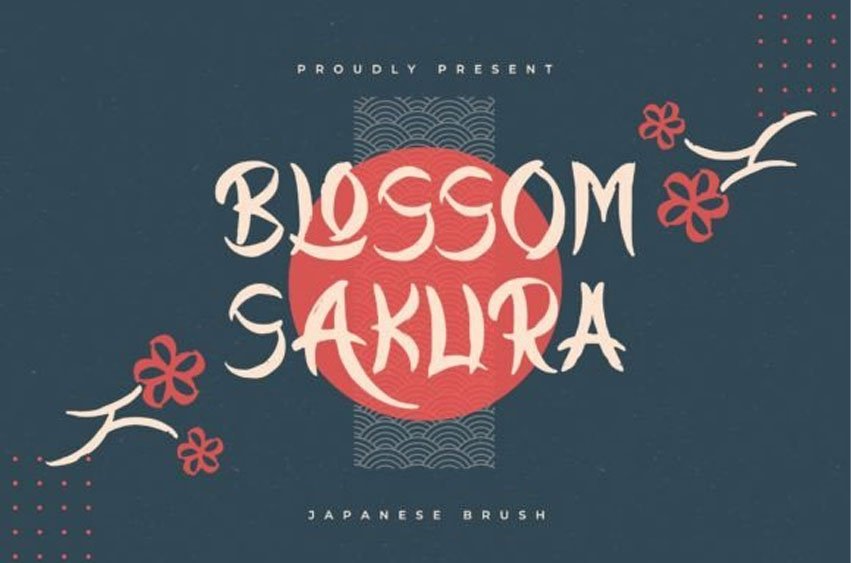
Blossom Sakura Font is a Japanese brush font, suitable for any projects such as: logos, branding projects, homeware designs, product packaging, mugs, quotes, posters, shopping bags, t-shirts, book covers, name card, invitation cards, greeting cards, label, photography, watermark, special events, and all your other lovely projects that need a Japanese Brush taste.